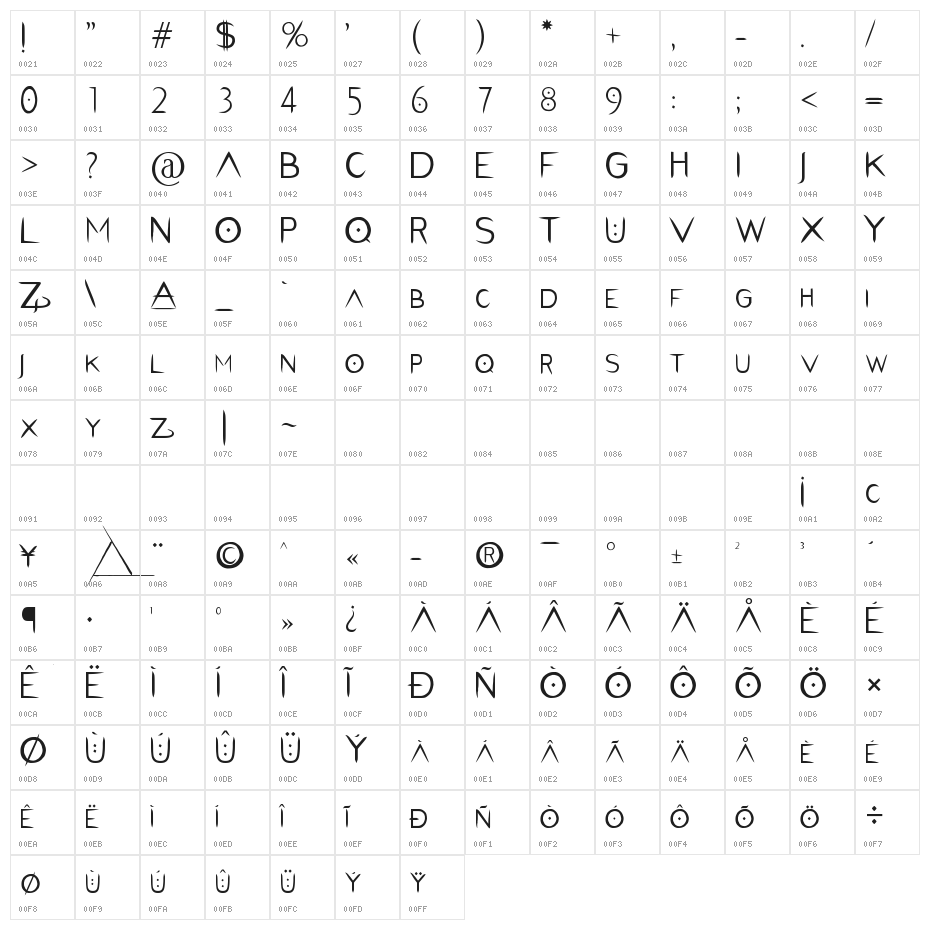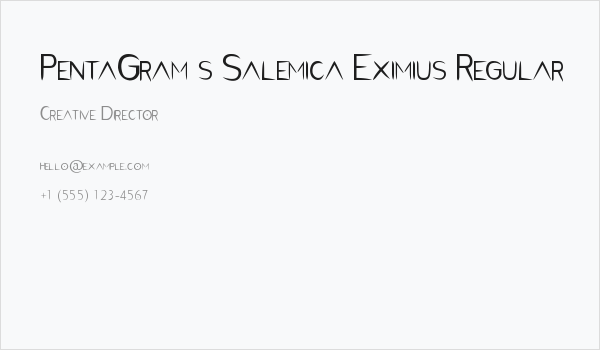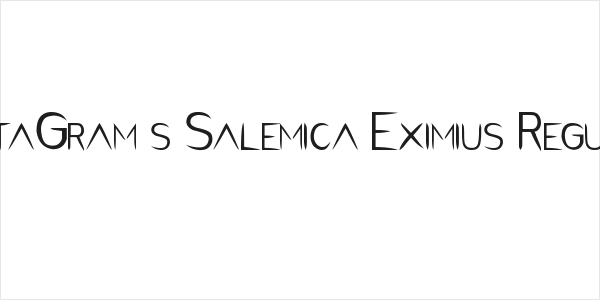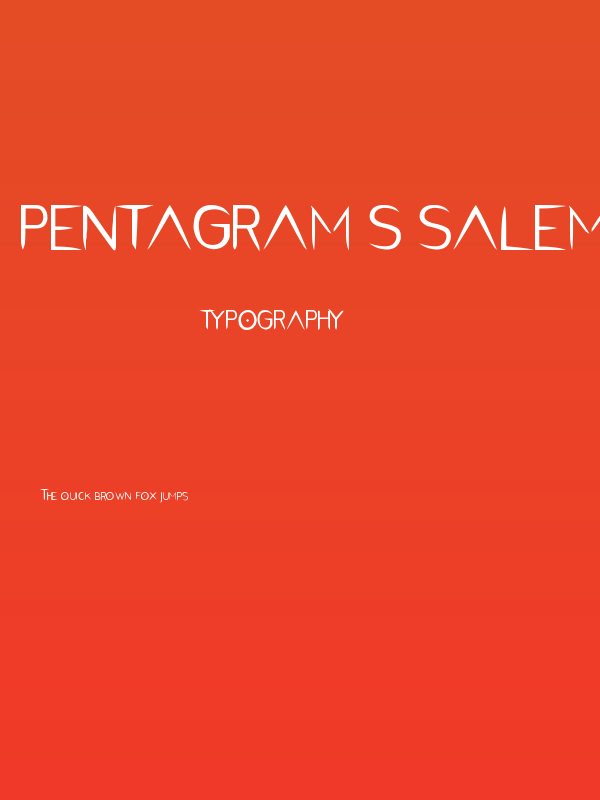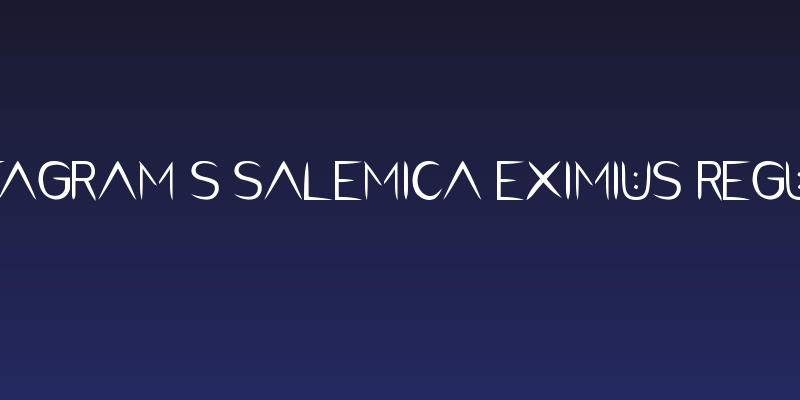
PentaGram s Salemica Eximius Regular Font
PentaGram s Salemica Eximius Regular Description
This font features a unique and artistic design with a mystical and slightly gothic flair. The characters are characterized by sharp, angular lines and distinctive circular elements within certain letters, such as 'O' and 'Q'. The uppercase and lowercase letters maintain a consistent style, with a playful yet sophisticated appearance. The numerals are equally stylized, incorporating the same circular motifs. Special characters are creatively designed, adding to the font's overall mysterious and enchanting aesthetic.
| Overall Style | Mystical, Gothic, Artistic |
| Proposed Projects | Ideal for fantasy-themed projects, book covers, game titles, and branding that requires a mystical or gothic touch. |